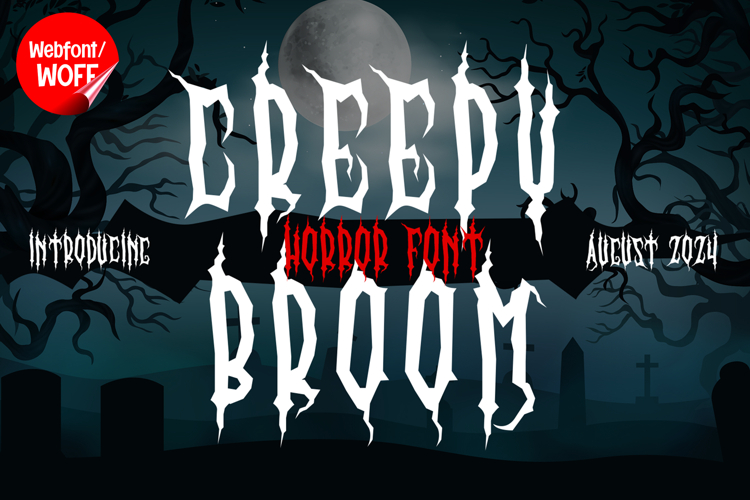
Creepy Broom | Horror Halloween Webfont for Spooky Websites
Creepy Broom is a horror Halloween webfont designed to bring a dark, eerie, and mysterious atmosphere into modern website design. Inspired by classic horror visuals, haunted themes, and spooky storytelling, this font features sharp edges, irregular shapes, and unsettling details that create a chilling visual impact. It is an excellent choice for projects that aim to deliver a dramatic and immersive horror experience.
Creepy Broom includes a complete set of uppercase characters designed with horror-inspired forms. The letterforms feature jagged lines and eerie distortions that evoke a sense of tension and mystery. These characteristics make the font ideal for headlines, banners, hero sections, and featured content where a strong and haunting visual presence is needed.
In addition to letters, the font includes numbers and punctuation, allowing flexible usage across various parts of a website. It works well for event promotions, Halloween campaigns, themed content, and call-to-action sections. Each character maintains a consistent horror style, ensuring a cohesive and unified visual identity throughout the layout.
With multilingual support, Creepy Broom includes a wide range of accented characters, making it suitable for international websites and global audiences. This allows content to be displayed clearly across different languages while preserving the spooky and atmospheric aesthetic.
The horror Halloween style of Creepy Broom makes it especially suitable for seasonal websites, haunted attractions, gaming platforms, horror blogs, and themed promotional campaigns. Its dark and dramatic design adds suspense and personality, helping websites stand out with a unique and immersive look. The eerie details enhance storytelling and create a memorable visual experience.
Despite its highly stylized and dramatic appearance, Creepy Broom is designed with readability in mind. The spacing and proportions are carefully balanced to ensure clarity, particularly in display sizes. This makes it effective for impactful headings and short content elements where both style and usability are important.
Creepy Broom is a webfont that combines horror aesthetics with modern digital performance. Its jagged forms, eerie details, and dark character create a distinctive typographic presence that enhances website design. For projects that require a spooky, dramatic, and visually engaging font, Creepy Broom offers a powerful and atmospheric solution.